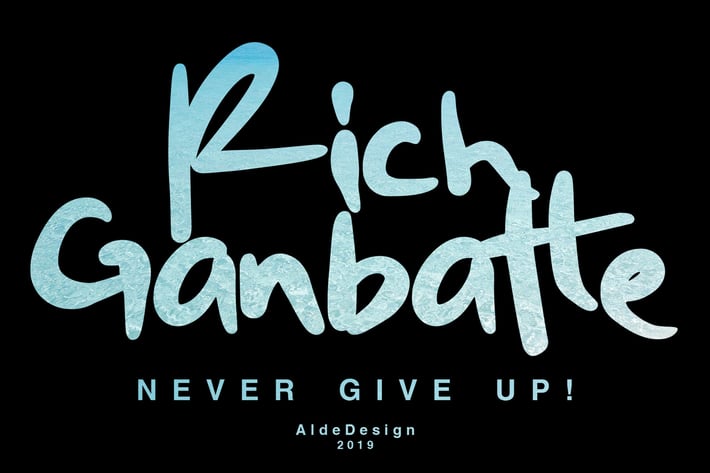
Rich Ganbatte - Logotype Font
Rich Ganbatte is AWESOME logotype font. This font is all capital, no lowercase.
But this font is very very cool for logo, for poster, for spirit quote or any adventure design. Just use it !
This font is for those who want to show something strong and different. You may use this font if you want to attract modern buyers. The font design seems to show that you have a passion in the business and give your love to the products and services you are offered to customers.
Stylish modern logotype font
Special Ligatures